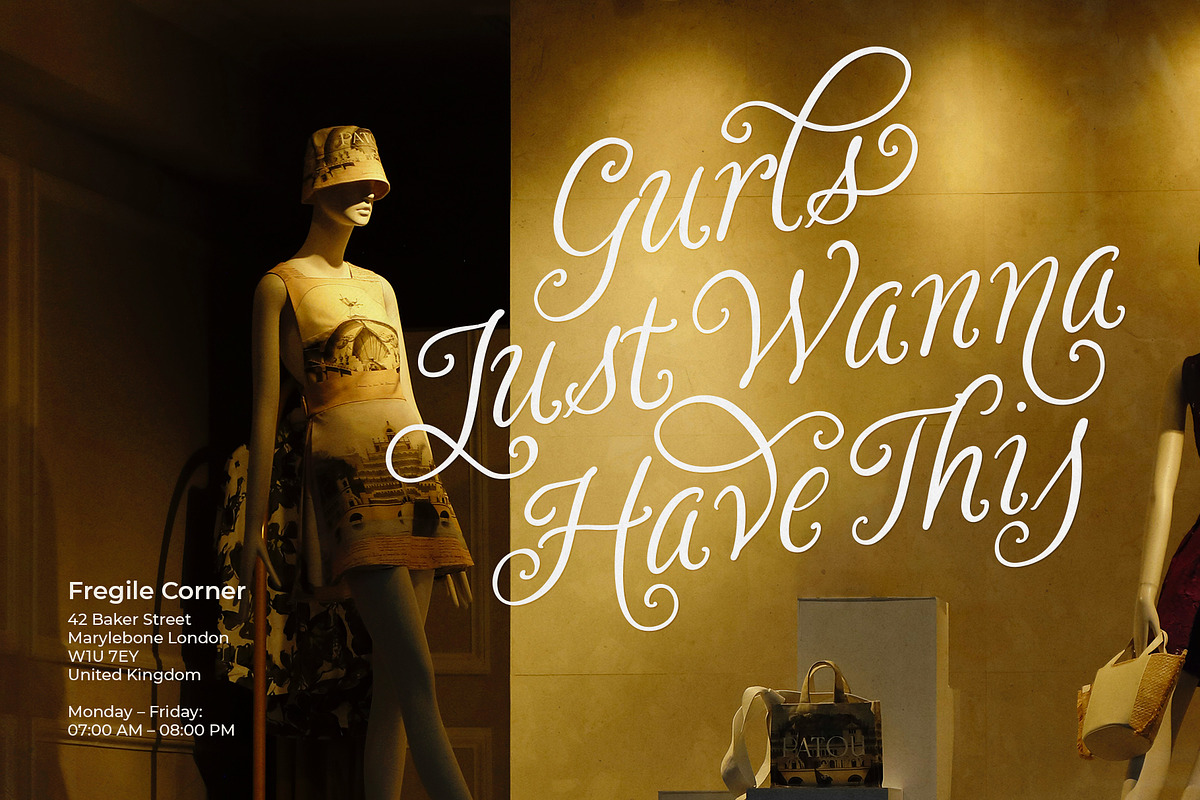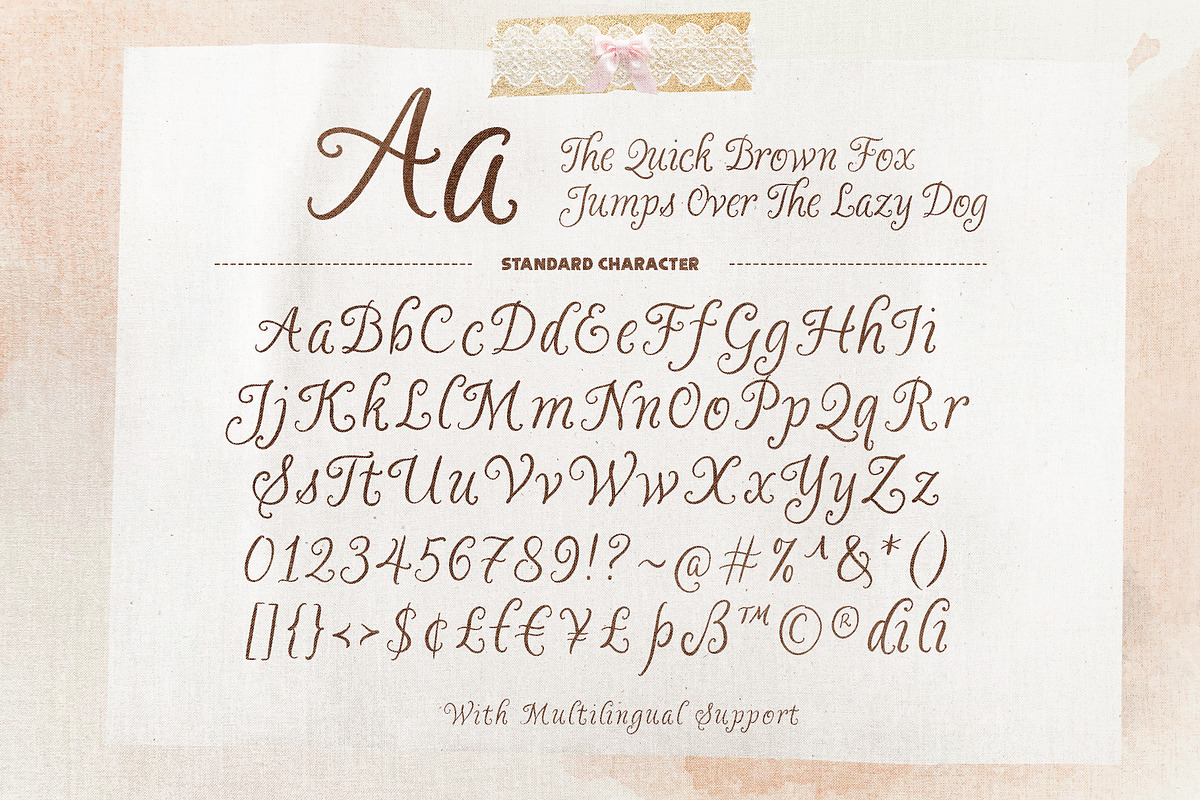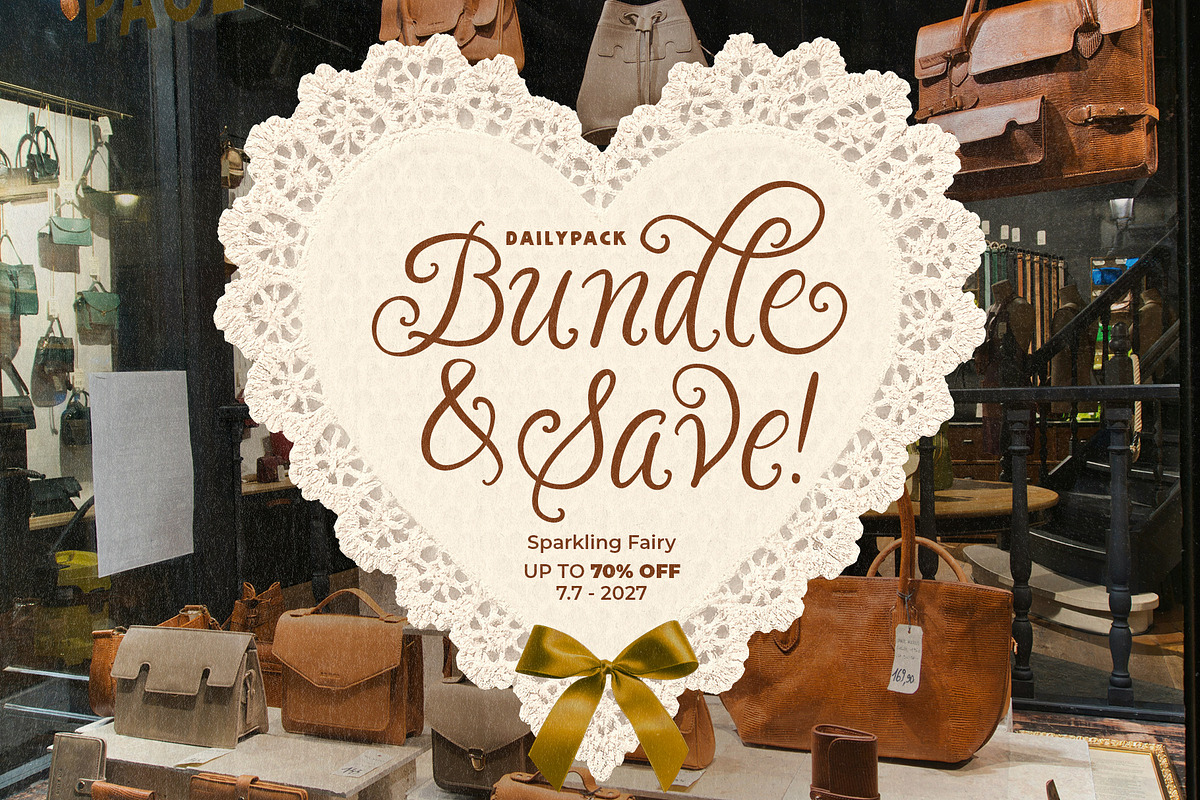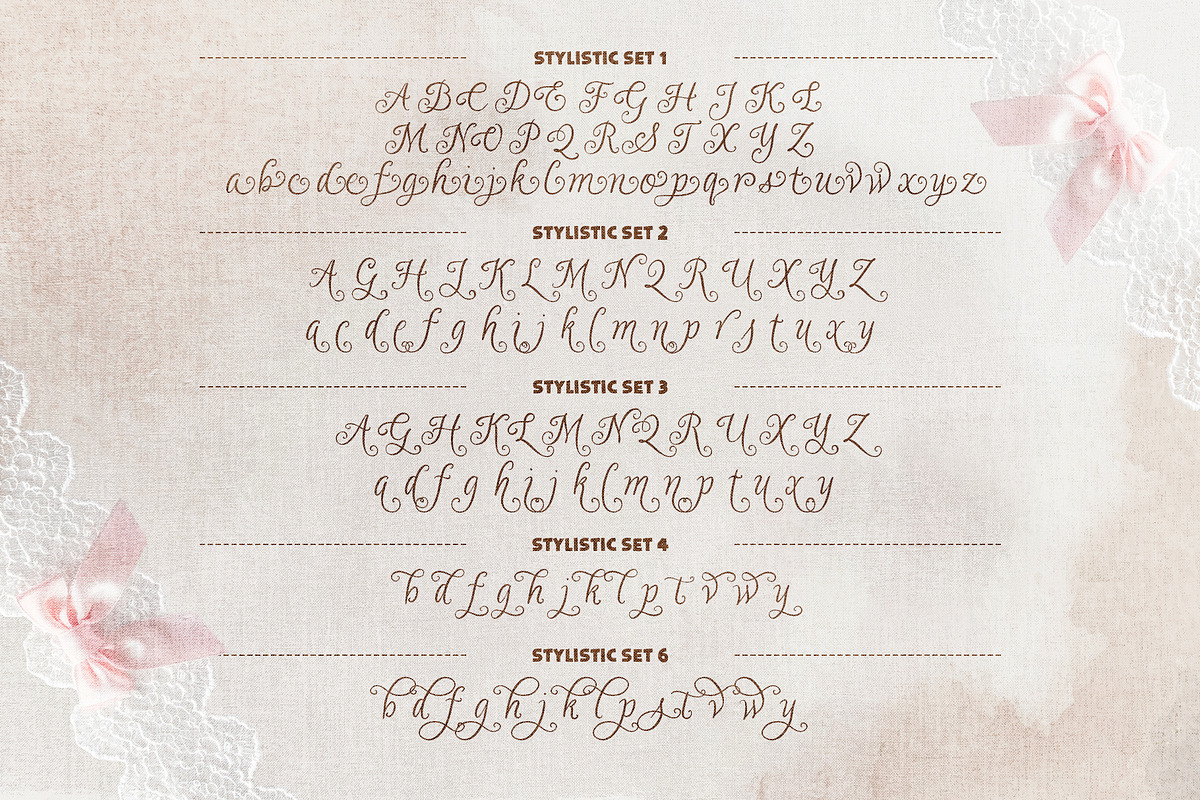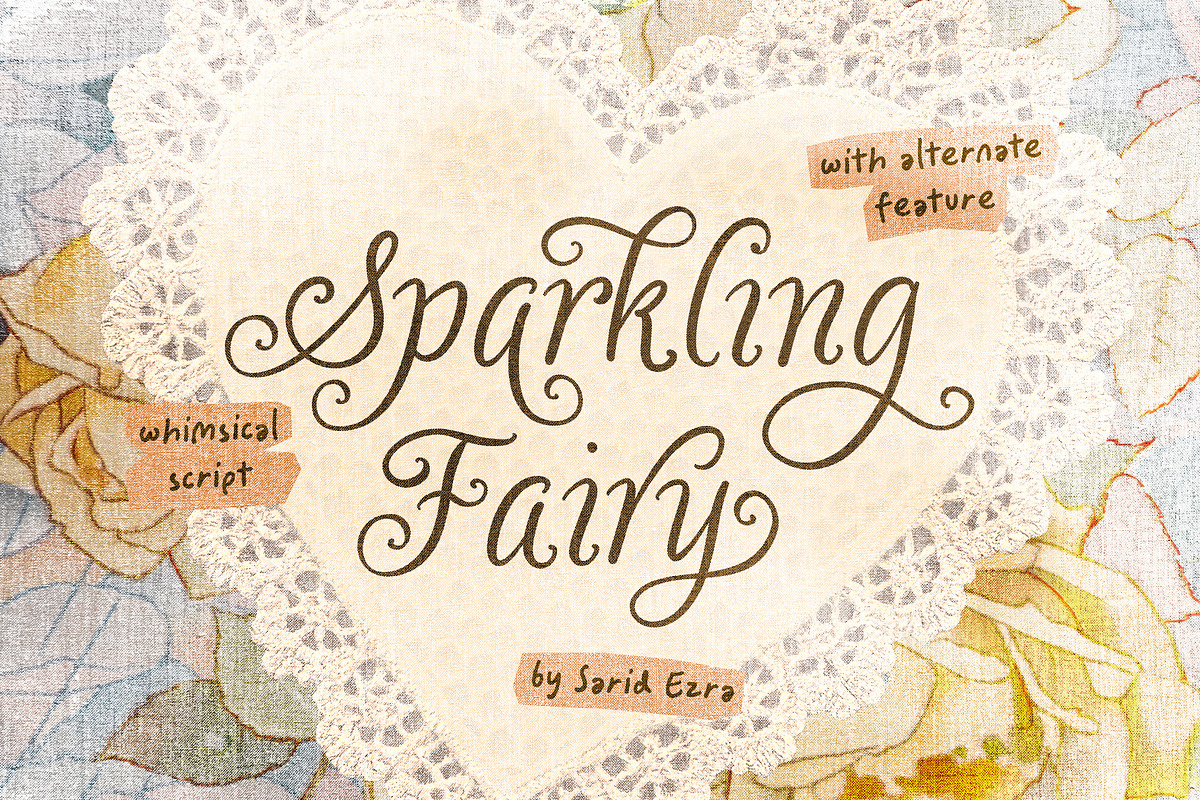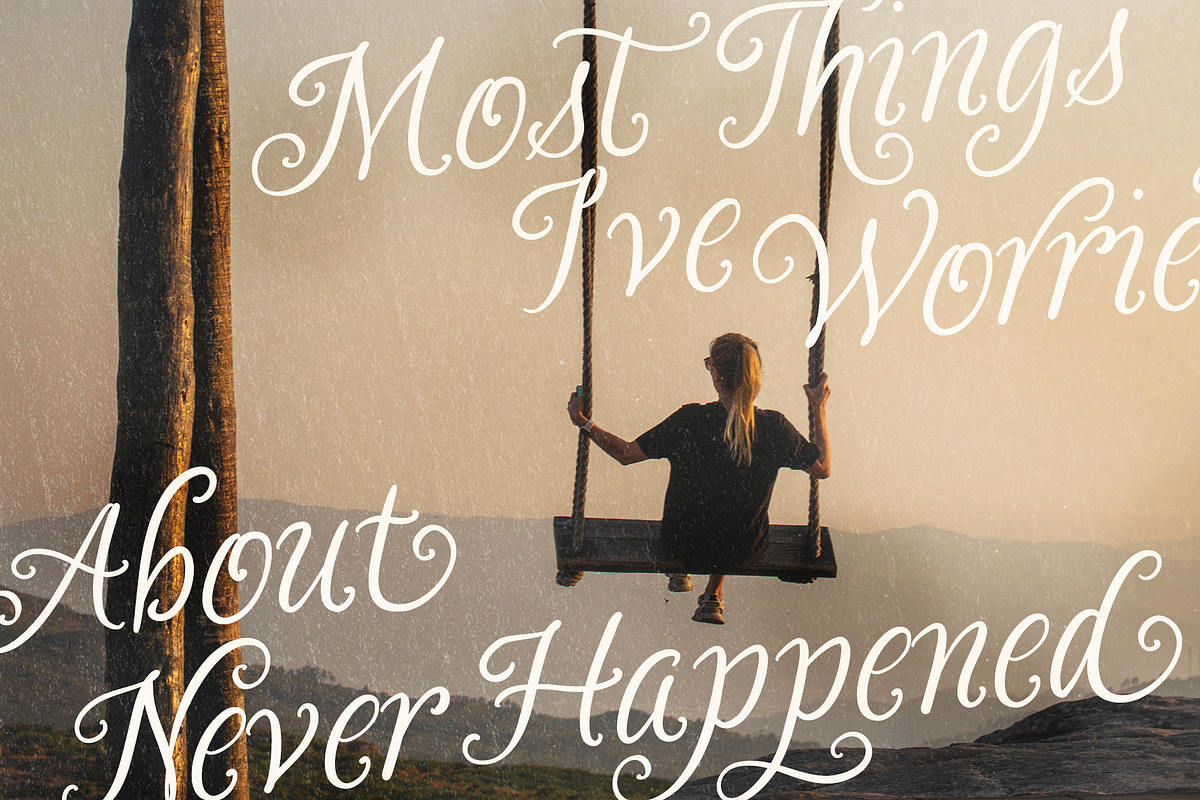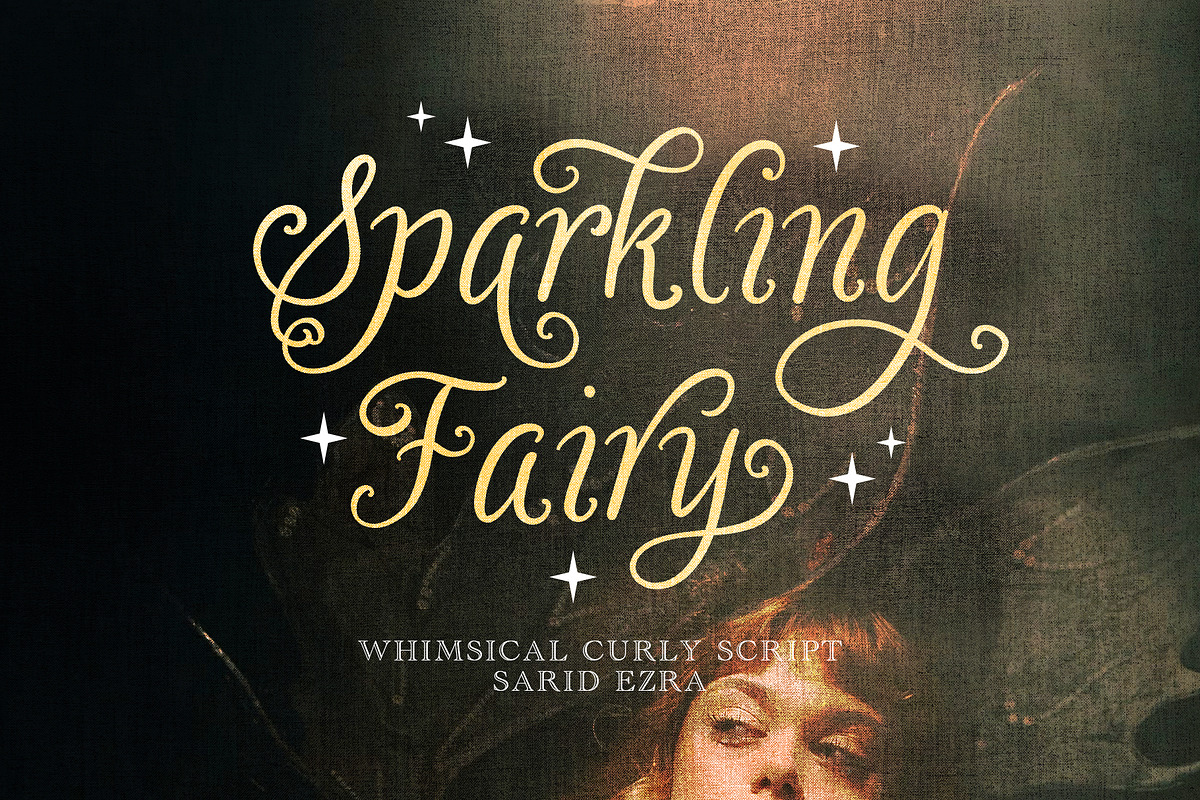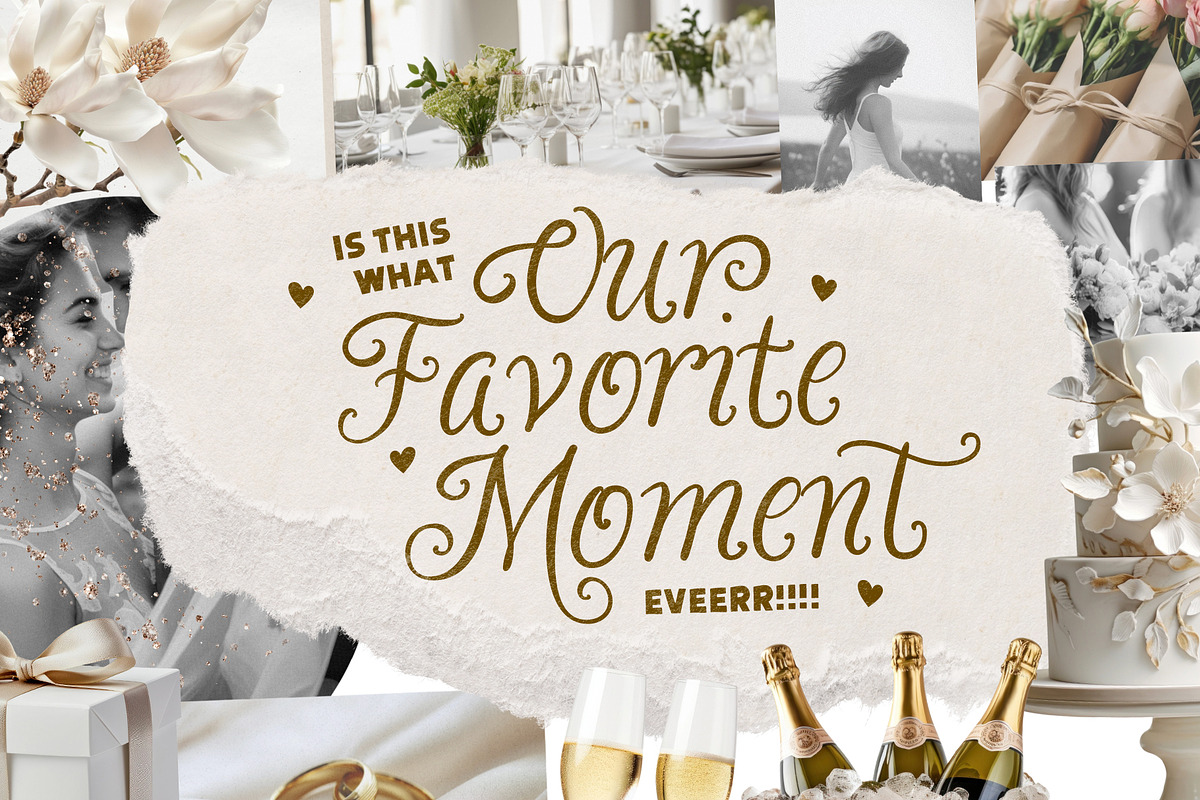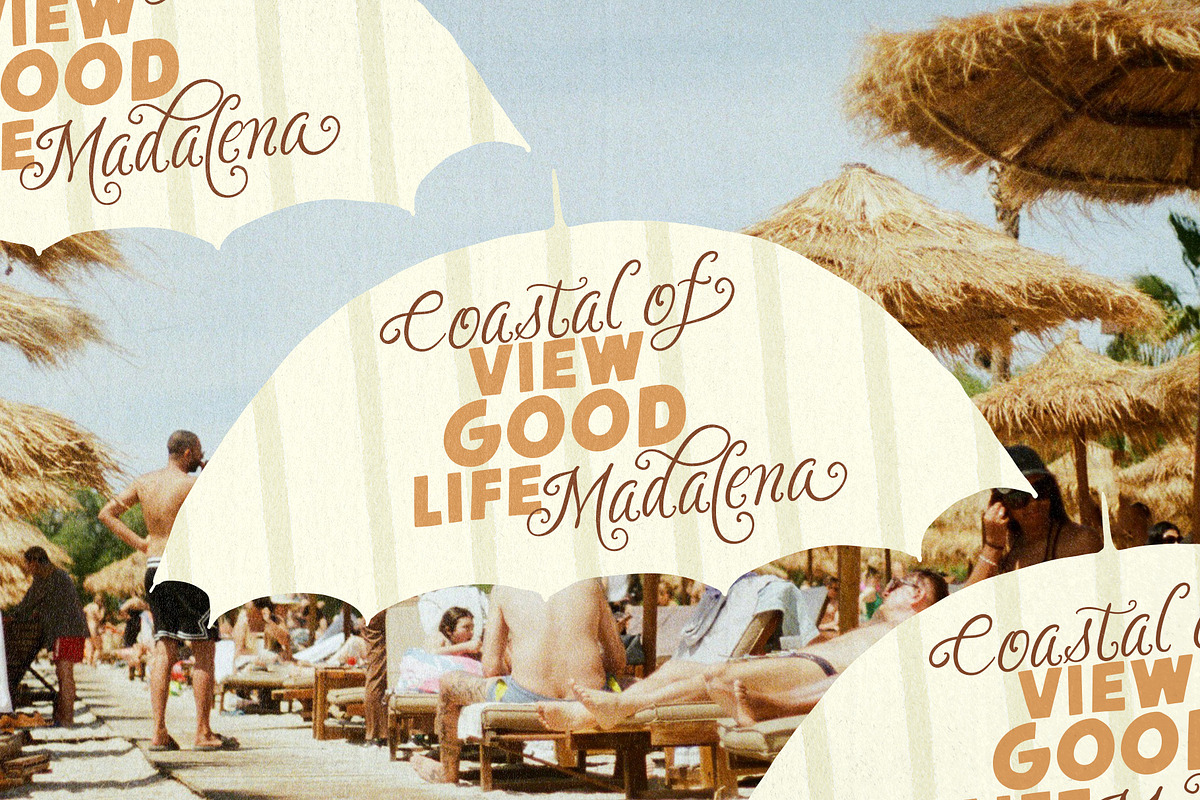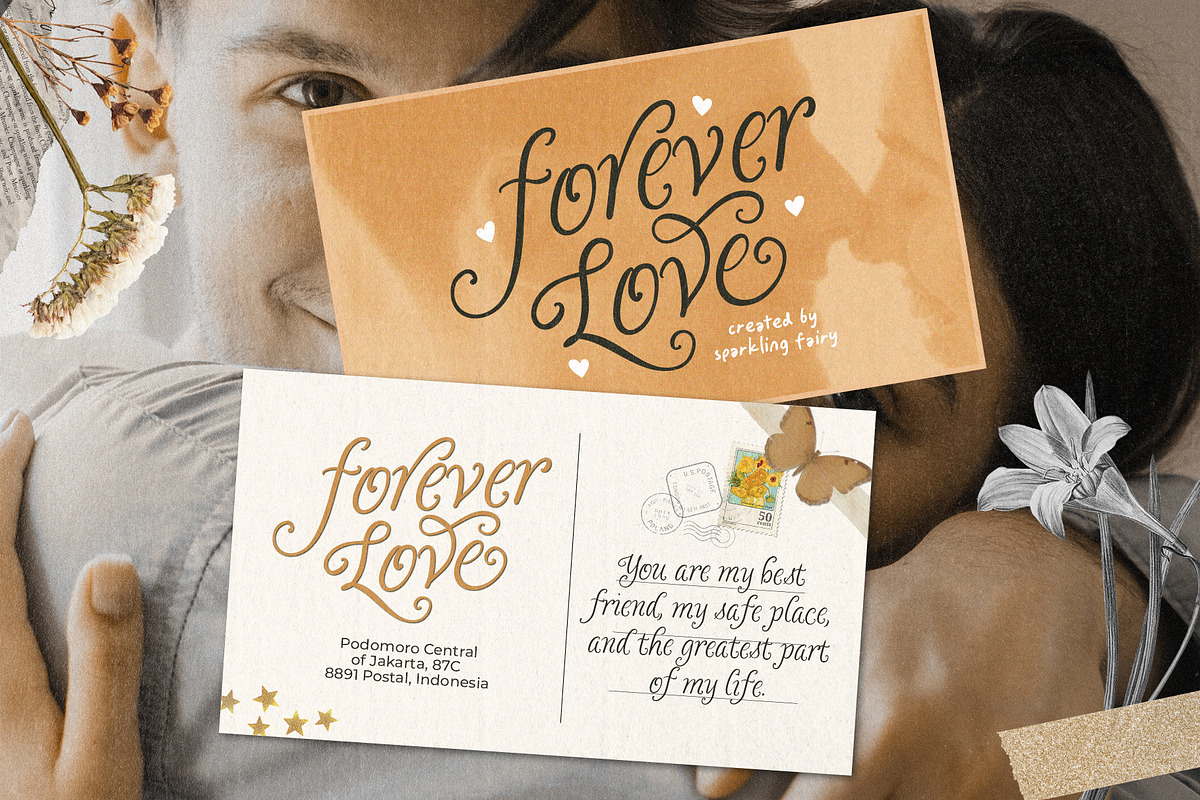
Sparkling Fairy - Whimsical Script
Sparkling Fairy is a whimsical and curly handwritten script. With bunch of stylish alternates, you can make your project looks stunning and magical. You can use this font for so many purposes such as branding, wedding invitation, quote, logotype, or any designs that need whimsy theme. This font also support multi language.